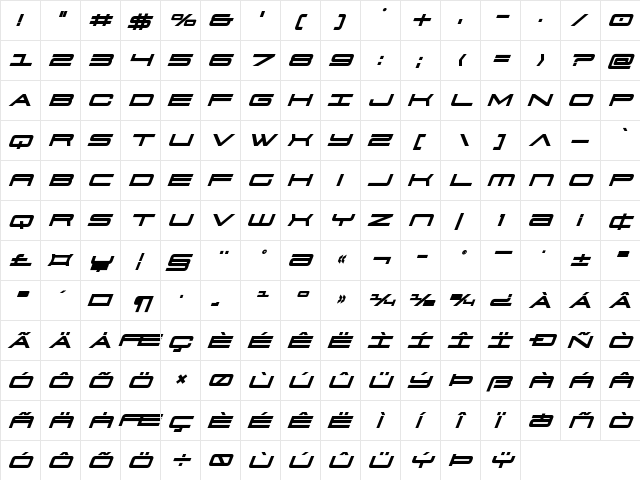
911 Porscha Bold Italic Font Preview
Design Context for 911 Porscha Bold Italic Typeface
911 Porscha Bold Italic offers clean, dependable letterforms without strong stylistic allegiance, making it a practical choice for designers who need flexibility. The slanted form adds forward momentum and visual energy. The heavy weight commands attention and anchors typographic hierarchies.